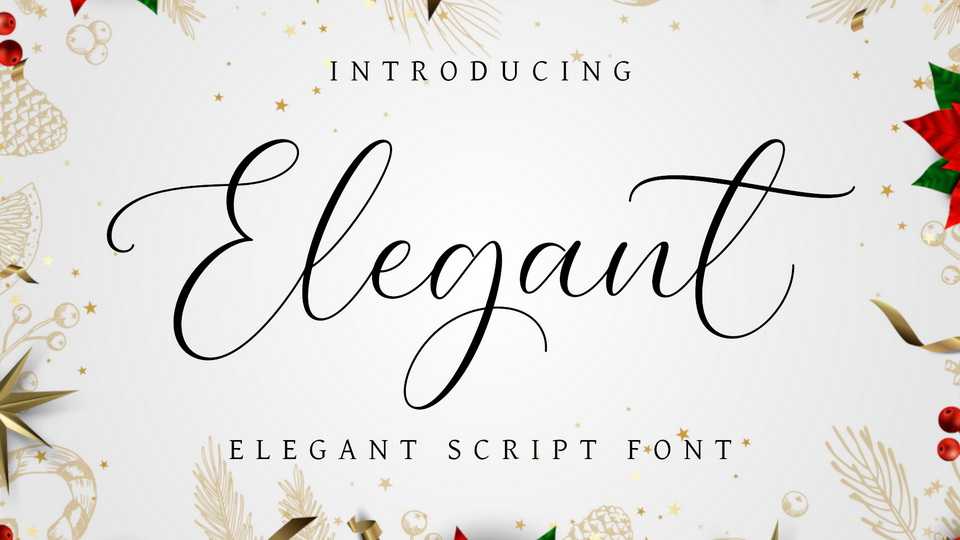
Download Elegant font, a script typeface that feels incredibly elegant and flowing. Elegant looks stunning on wedding invitations, greeting cards, logos, and every other design which needs a handwritten touch.
Designer: AV Type